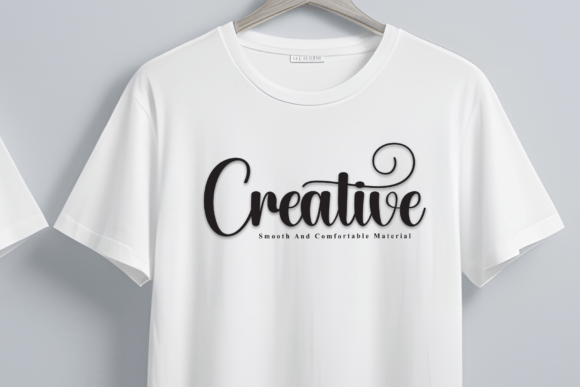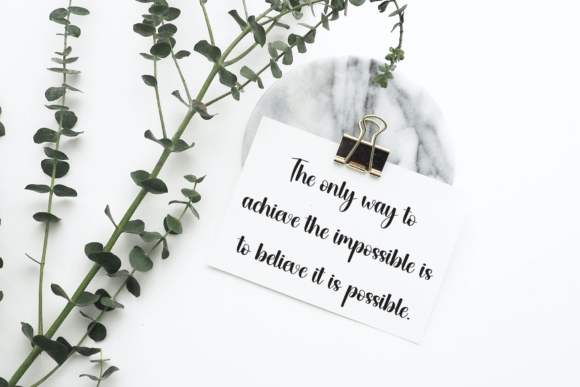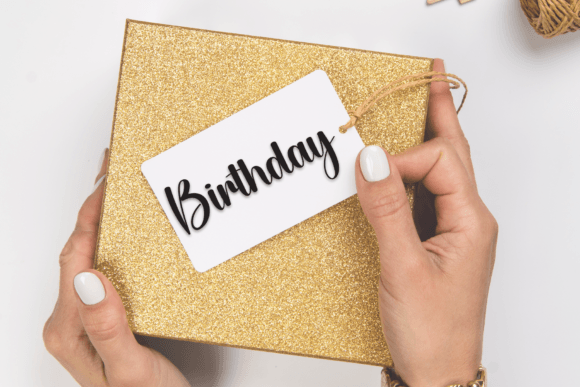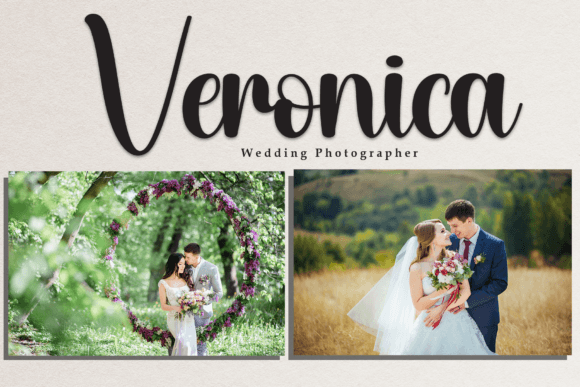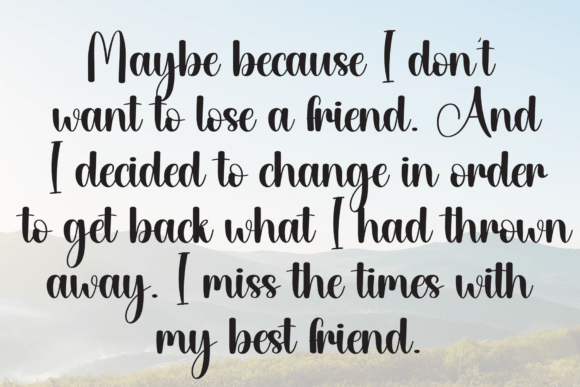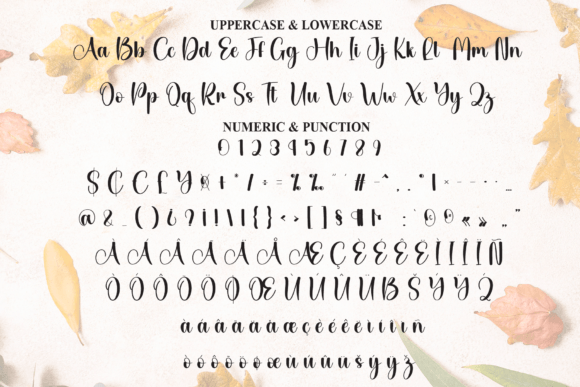
The Cozy Charm of Autumn Font: A Designer’s New Best Friend
I still remember the design project that led me to discover Autumn Font. I was working on a whimsical invitation for a friend’s fall wedding, and I was struggling to find the perfect font that captured the warmth and playfulness of the season. That’s when I stumbled upon Autumn Font, and it instantly became my go-to choice. Its casual, handwritten aesthetic added a delightful touch to the design, and I knew I had found a new favorite font.
An Honest Review of Autumn Font
- ✅ The font’s rounded, playful strokes give a relaxed and approachable feel, perfect for personal projects, invitations, and social media graphics.
- ✅ The charming, hand-drawn aesthetic adds a delightful, whimsical touch to any design.
- ✅ Autumn Font is incredibly versatile and can be used for a wide range of design projects, from digital graphics to print materials.
While Autumn Font is an excellent choice for many design projects, it’s not without its limitations. For example:
- ⚠️ The font may not be suitable for very formal or professional designs, as its casual aesthetic may not convey the right tone.
- ⚠️ Some users may find the font’s rounded strokes a bit too playful for certain design applications.
The Story Behind Autumn Font
Autumn Font was designed by a talented type designer who wanted to create a font that captured the warmth and coziness of the fall season. The designer drew inspiration from traditional handwritten fonts, but with a modern twist. The result is a font that is both playful and elegant, making it perfect for a wide range of design projects.
Q: What is Autumn Font?
A: Autumn Font is a casual, handwritten font that exudes warmth and friendliness.
Q: What can I use Autumn Font for?
A: Autumn Font is perfect for personal projects, invitations, social media graphics, and any design project that requires a playful, whimsical touch.
Q: Is Autumn Font easy to read?
A: Yes, Autumn Font is highly legible, making it suitable for body text and other applications where readability is important.